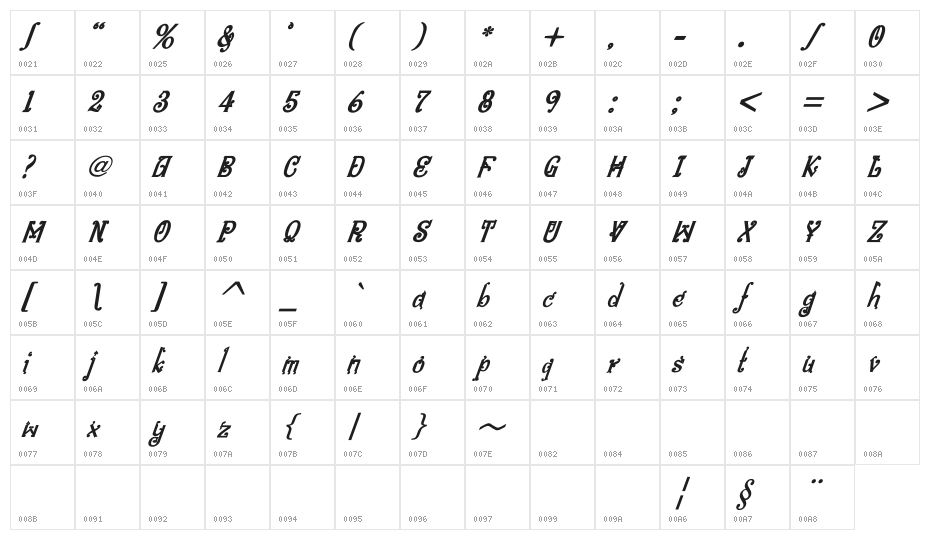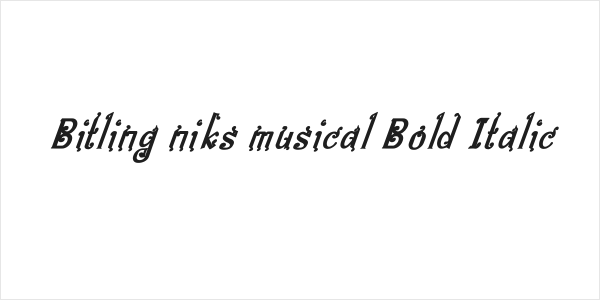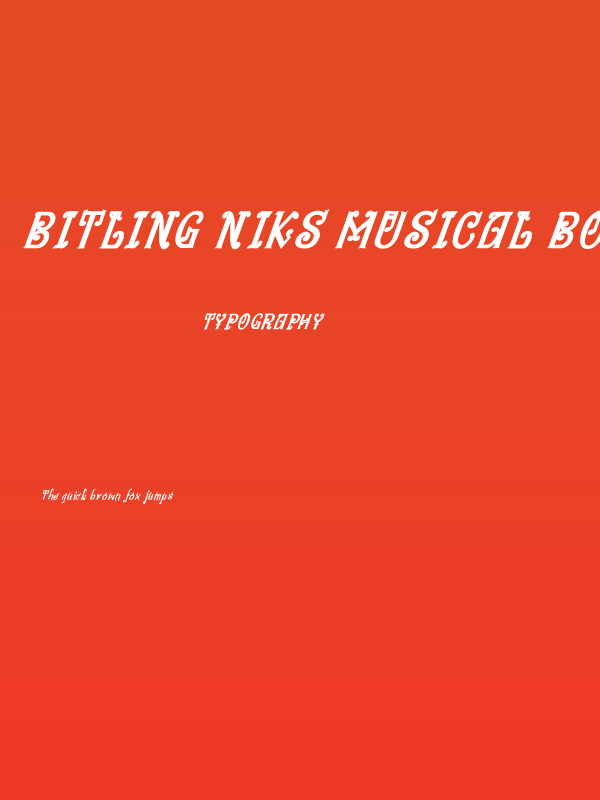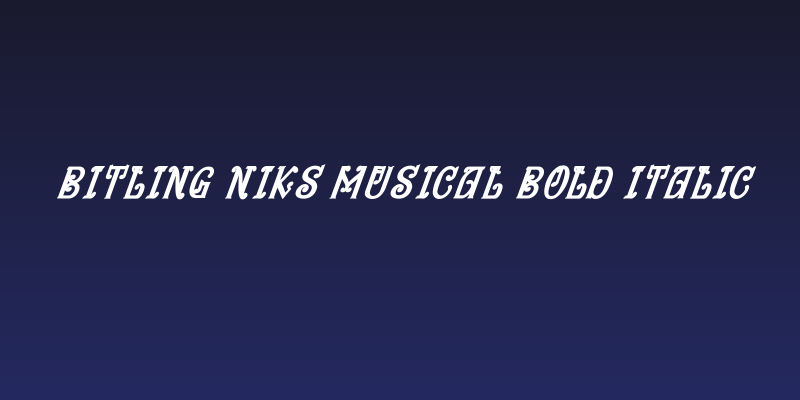
Bitling niks musical Bold Italic Font
Bitling niks musical Bold Italic Description
This font features a bold and italicized style with a unique decorative flair. The characters are designed with an artistic touch, incorporating playful curves and flourishes that give it a whimsical yet sophisticated appearance. The uppercase letters are particularly striking, with exaggerated serifs and dynamic strokes that create a sense of movement. The lowercase letters maintain this playful aesthetic, ensuring consistency throughout. Numbers and special characters are equally stylized, making them stand out in any design. This font is perfect for projects that require a touch of elegance and creativity.
| Proposed Projects | Ideal for music album covers, theatrical posters, creative branding, and artistic invitations. |